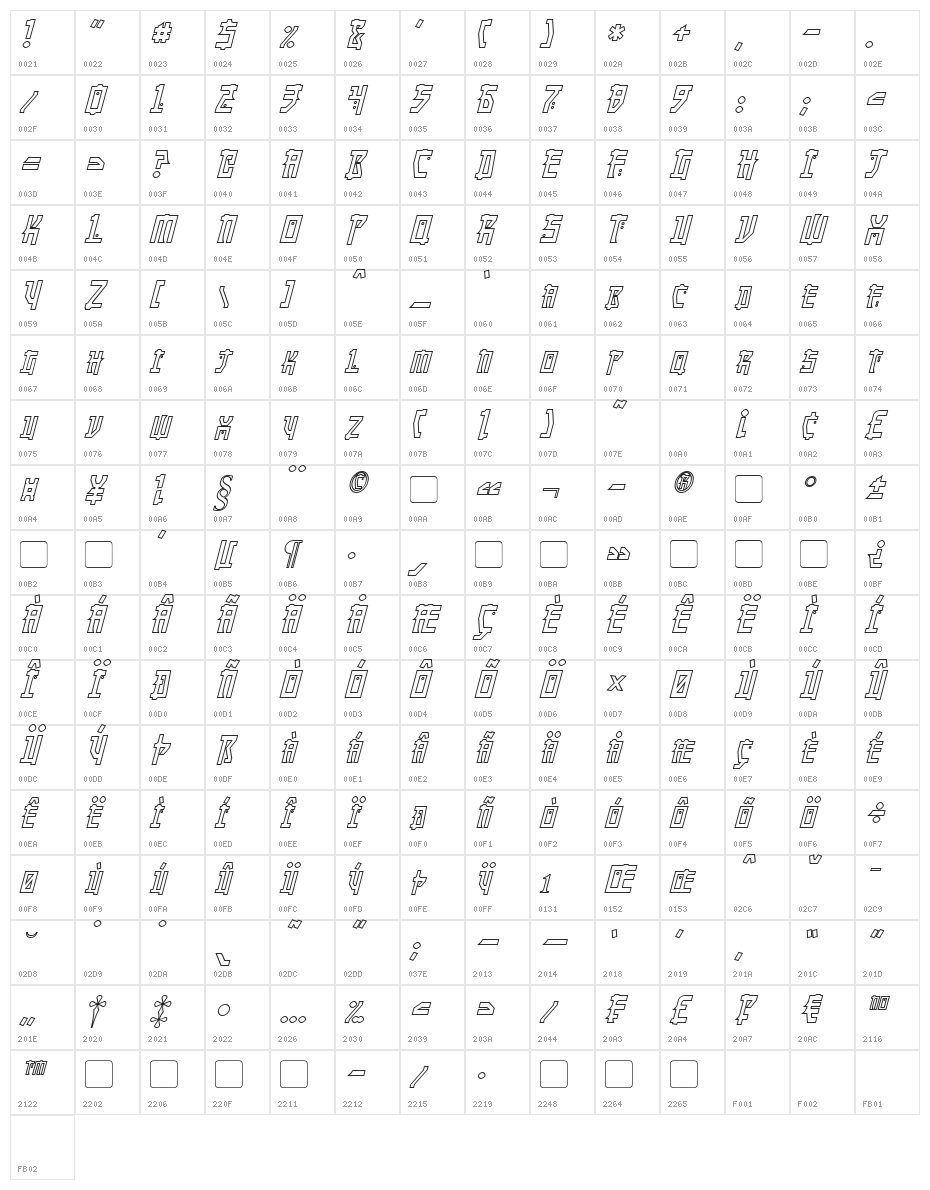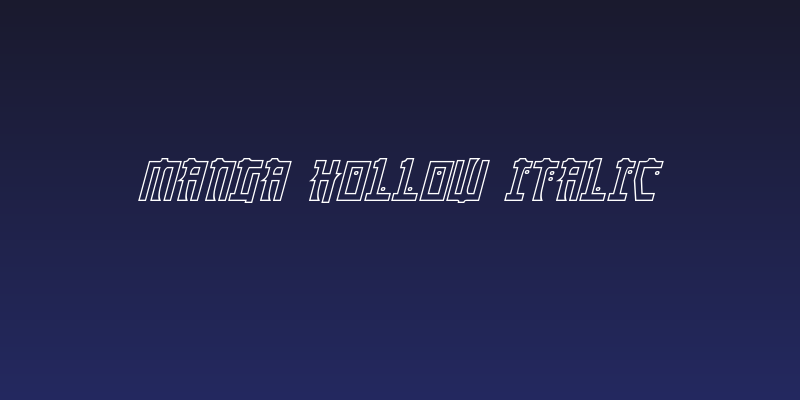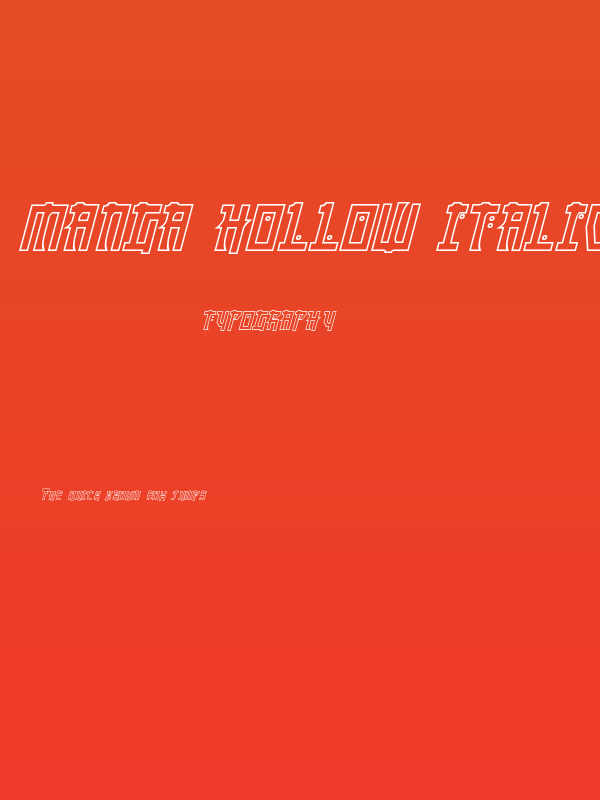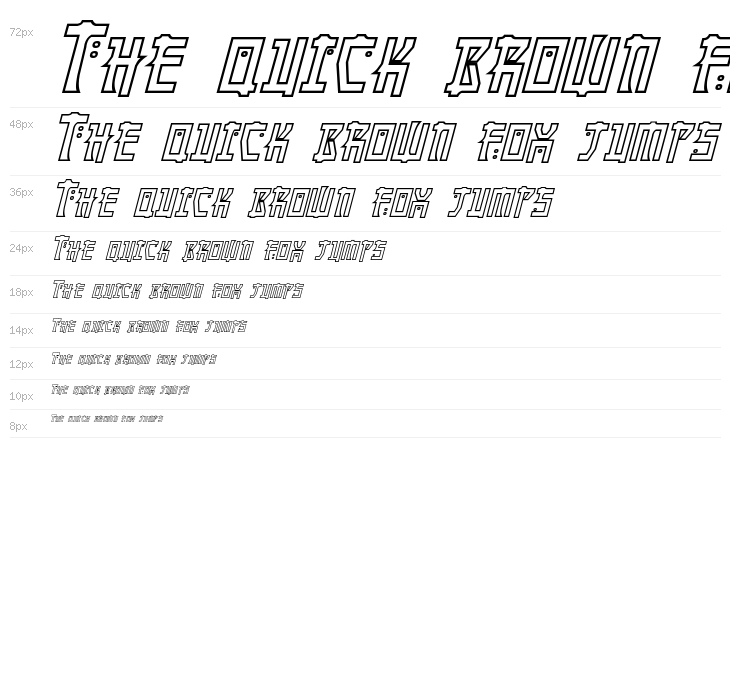
Manga Hollow Italic Font
Manga Hollow Italic Description
This font features a bold, hollow design with a distinct italic slant, giving it a dynamic and energetic appearance. The characters are outlined, creating a striking visual effect that stands out on any background. The angular, geometric shapes of the letters add a modern and edgy feel, while the hollow interior provides a sense of lightness and space. The font includes a full set of uppercase and lowercase letters, numbers, and a variety of special characters, making it versatile for different design needs. Its unique style is reminiscent of comic or manga aesthetics, making it ideal for projects that require a playful yet impactful typeface.